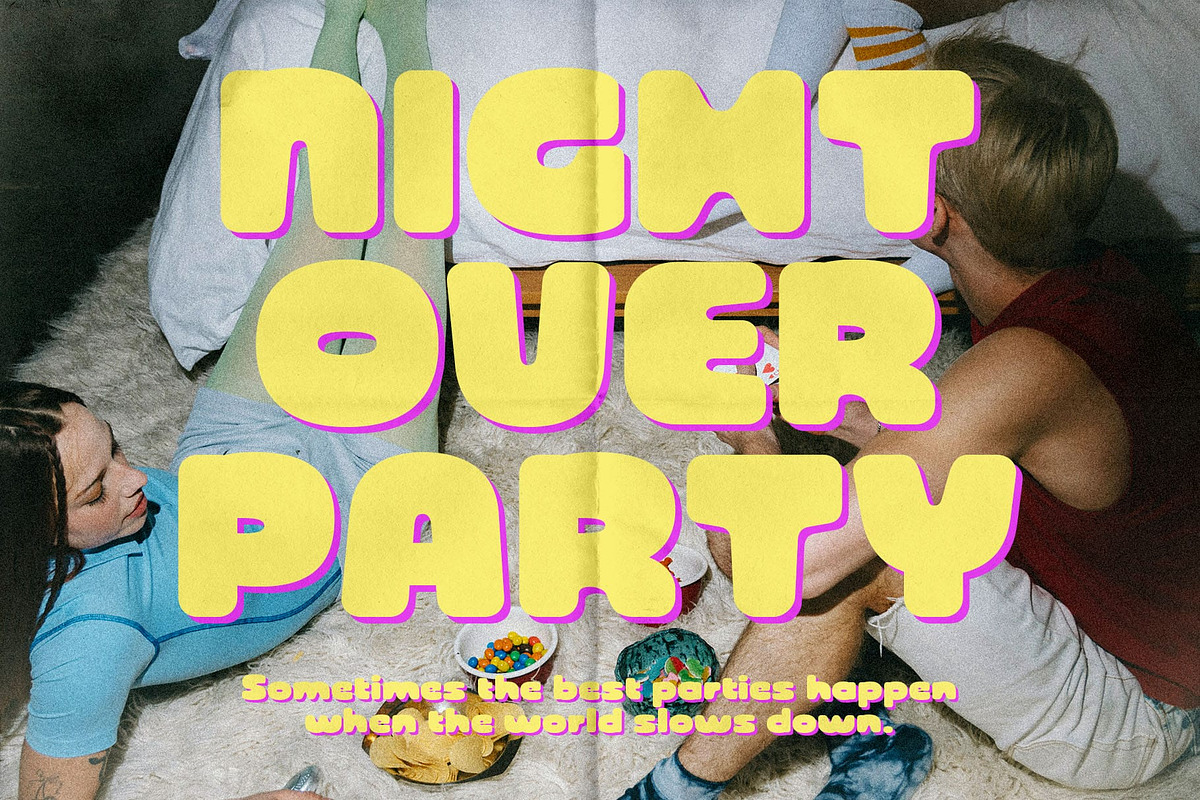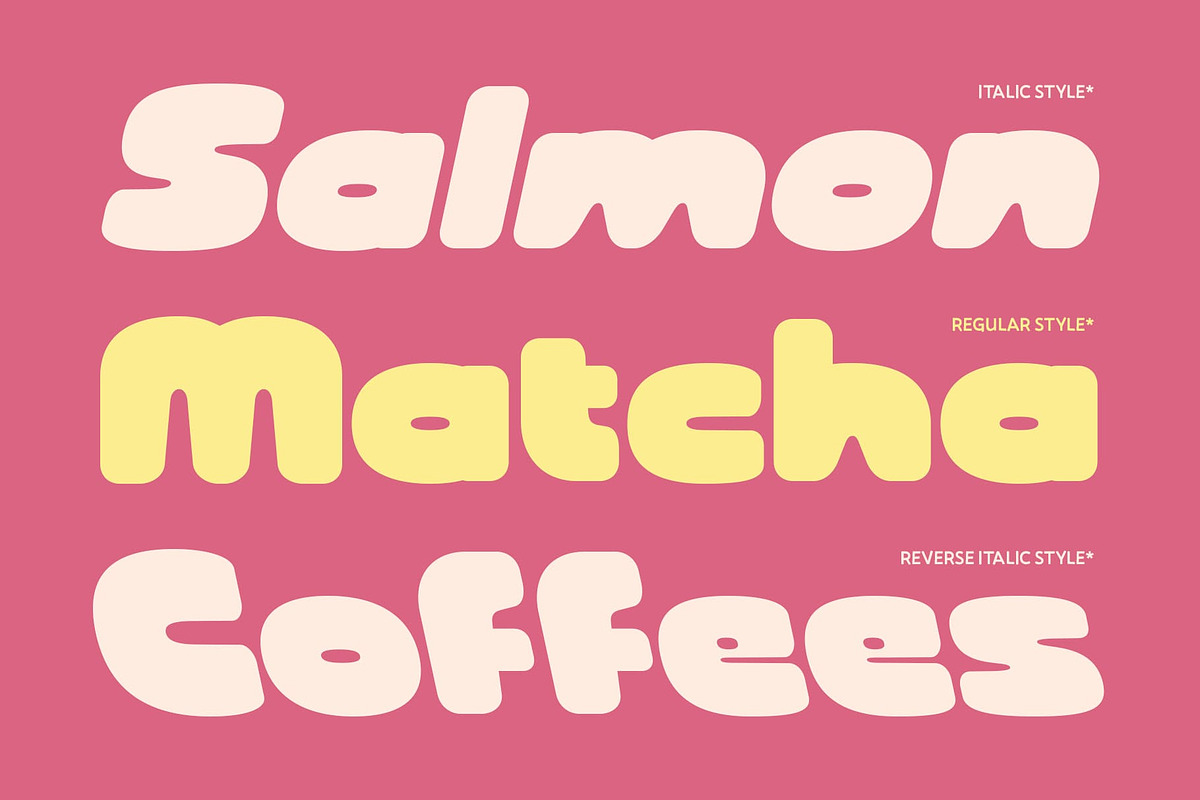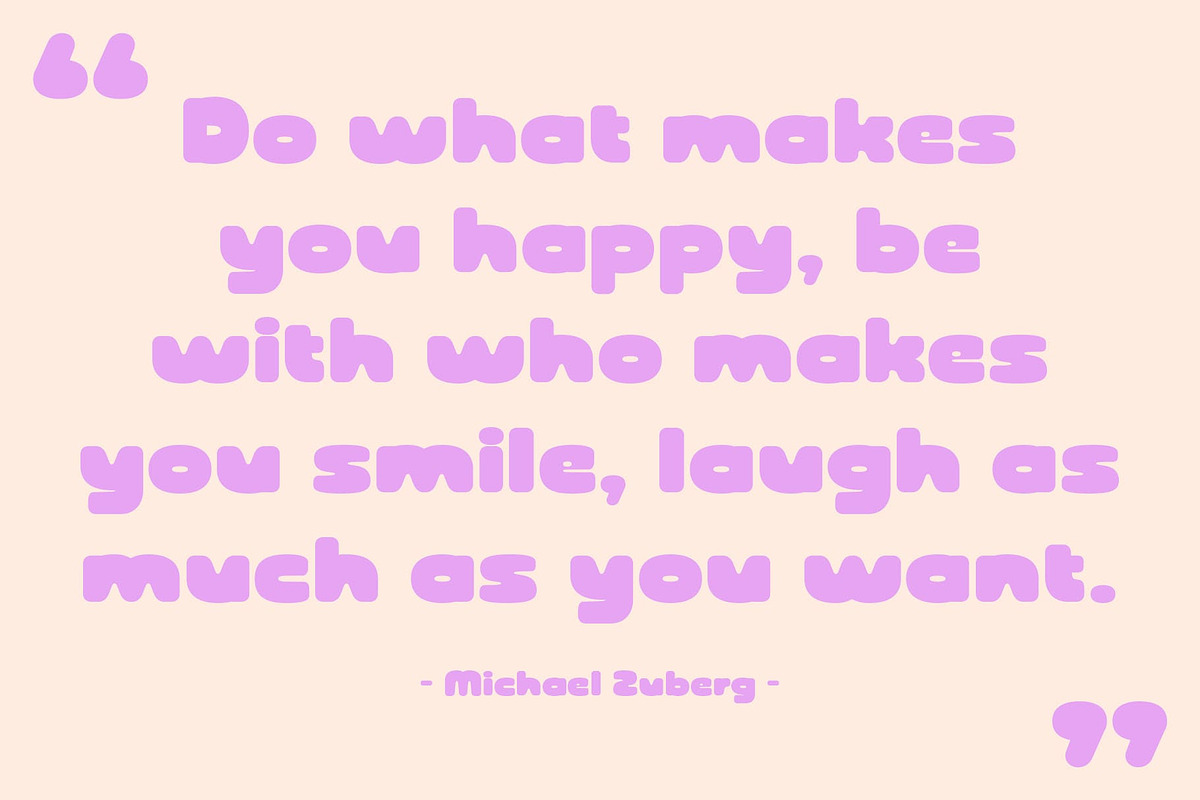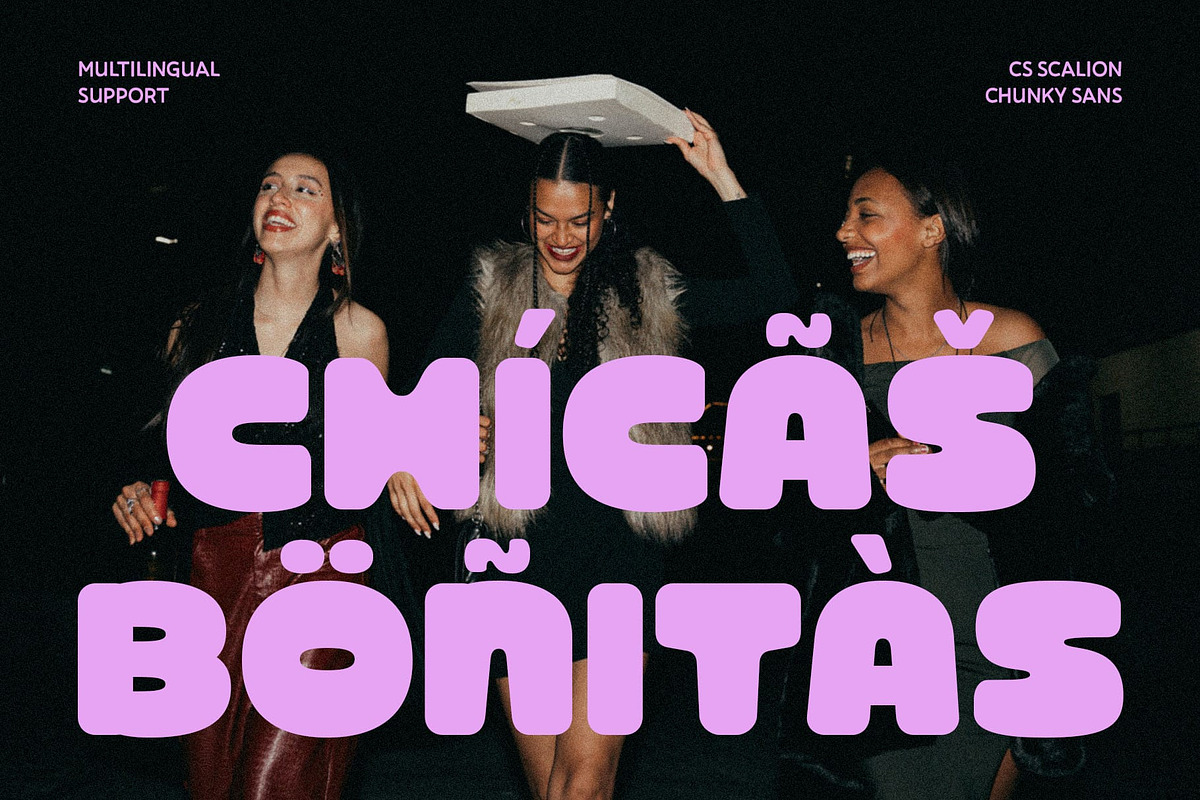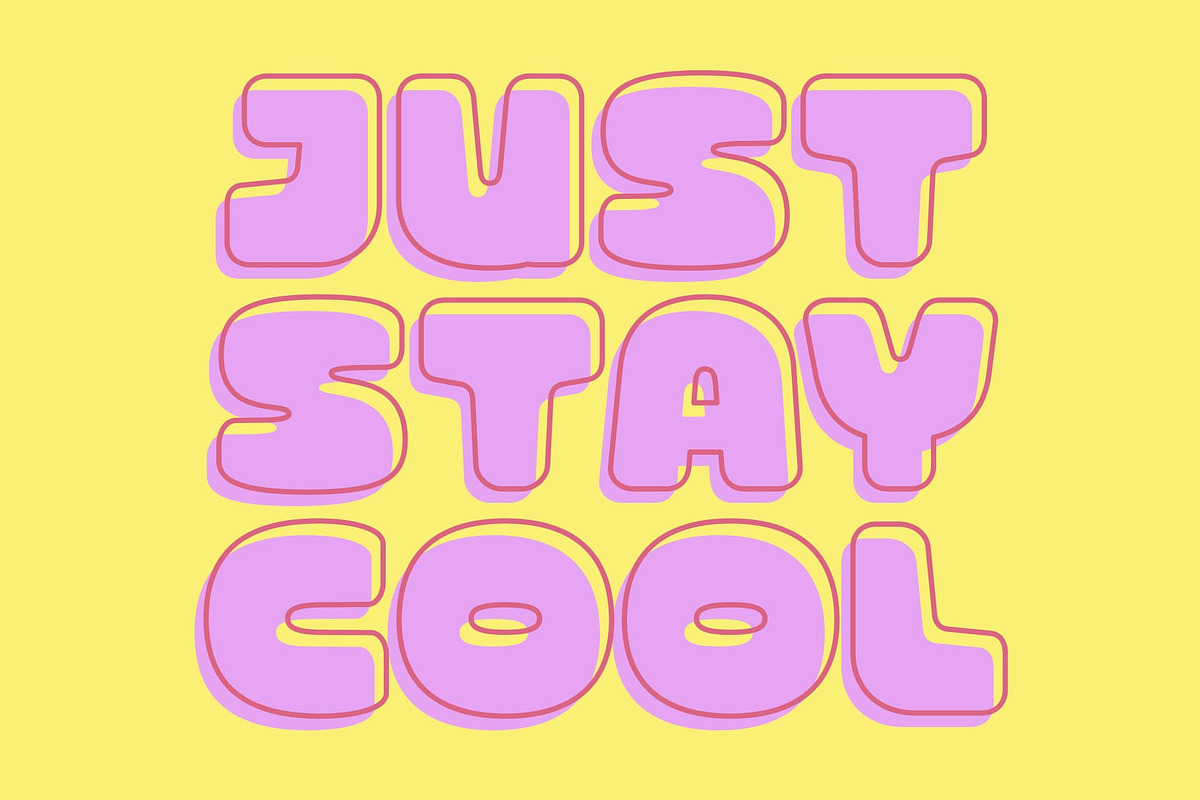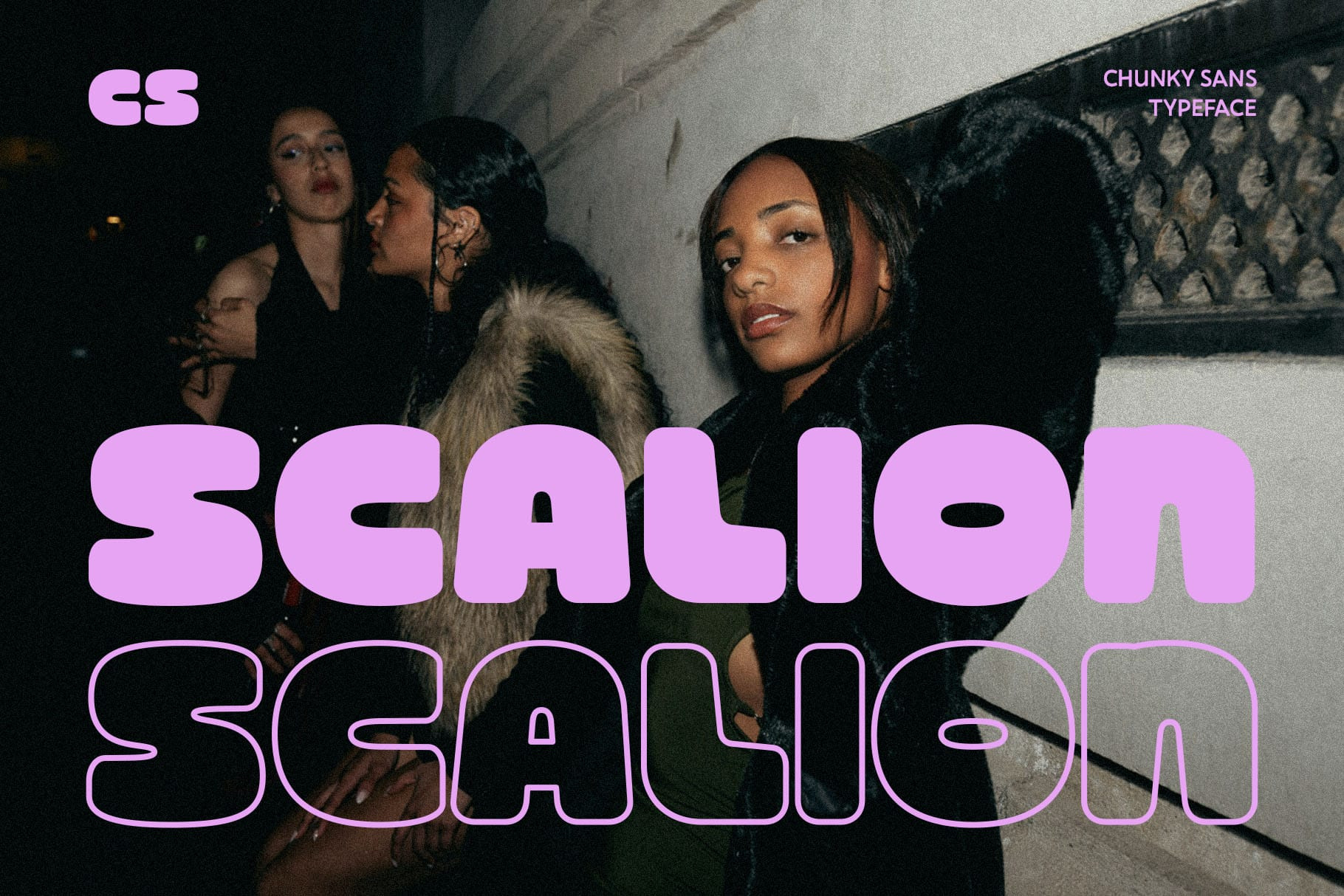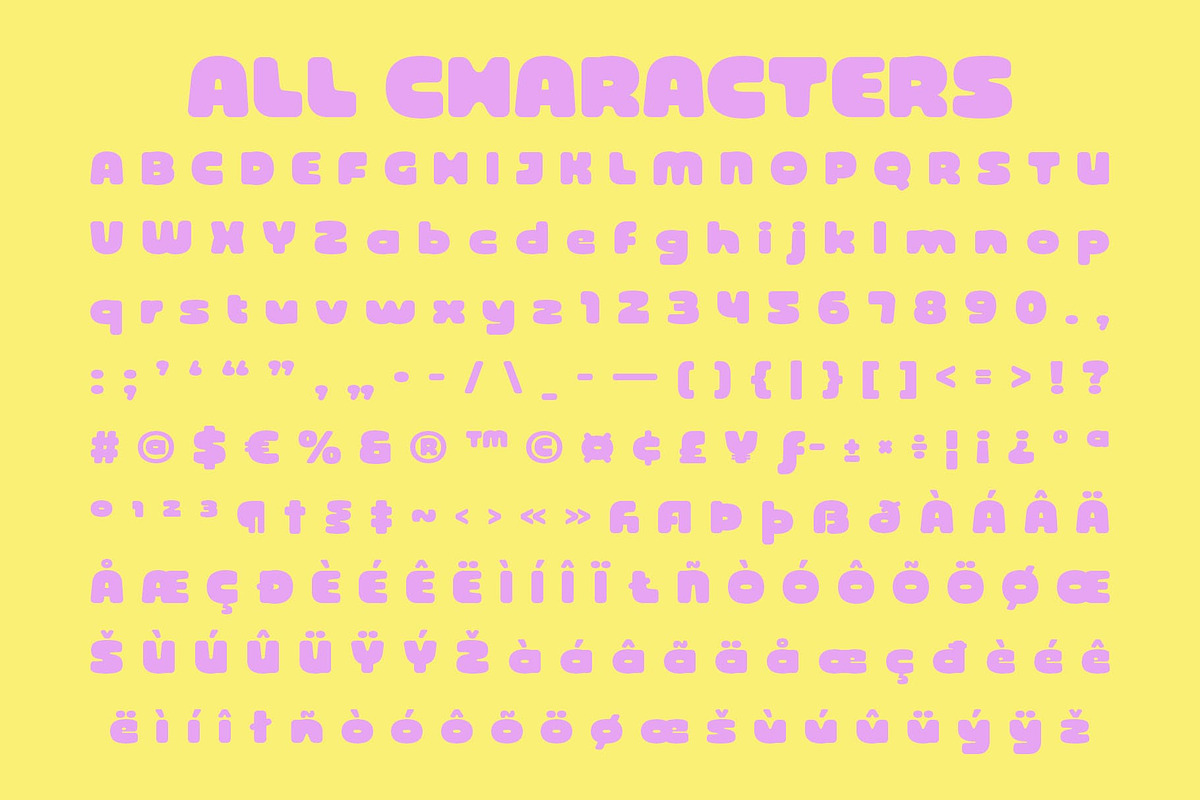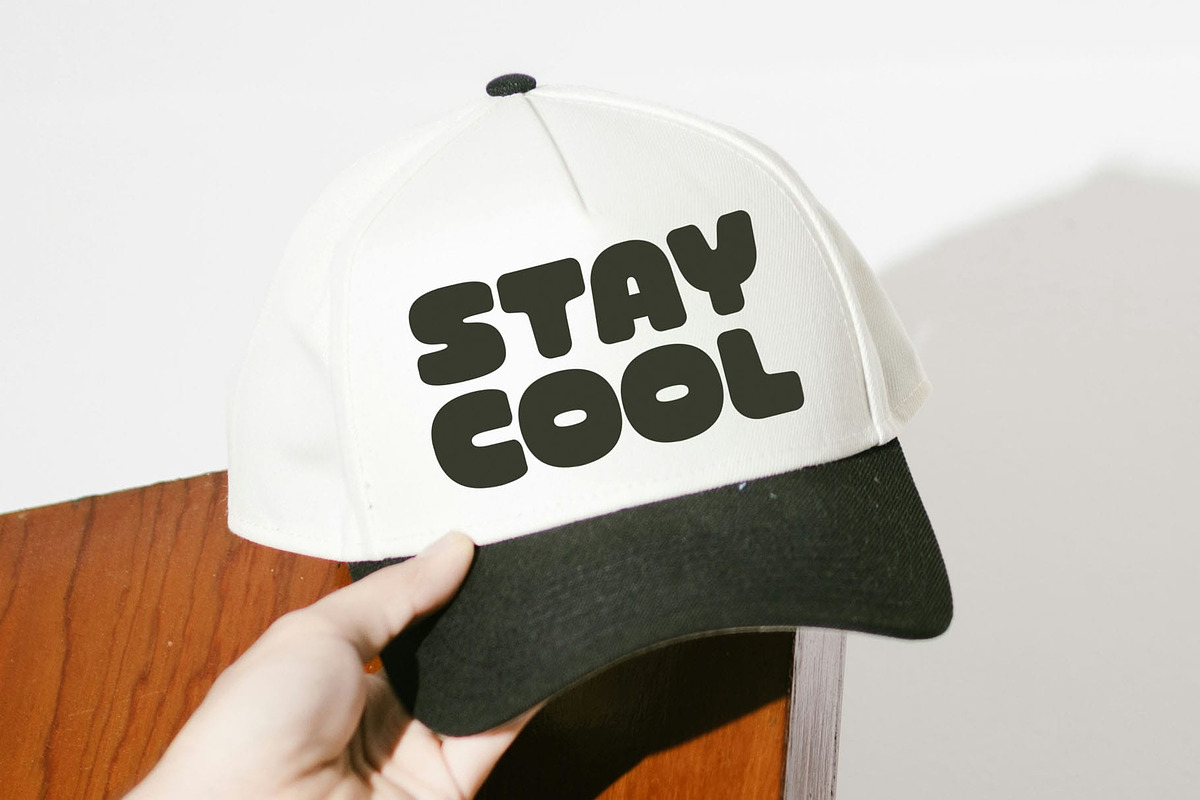
CS Scalion – Chunky Display Font
CS Scalion – Chunky Display Font: Rounded Bubble Font with Playful Strength
Bold and Sturdy Character CS Scalion features a bold, chunky design that conveys a sense of strength and solidity. Its slightly rounded forms soften the weight of the letters, creating a balance between sturdiness and approachability. This makes it a display font that stands out with confidence while remaining friendly.
Playful Yet Attention-Grabbing With bubble-like curves and a relaxed personality, CS Scalion brings a playful touch to design projects. Its fun and casual look makes it ideal for designs that aim to engage audiences with a friendly and approachable vibe while still demanding attention.
Perfect for Titles and Logos As a display font, CS Scalion excels in large applications such as titles, banners, posters, and logos. Its chunky forms ensure maximum visibility and impact, helping your message remain bold and memorable across different media.
Vibrant with Colorful Designs CS Scalion pairs beautifully with bright and colorful palettes, enhancing its playful character. When combined with vibrant tones, the font truly shines, making it a standout choice for modern branding, creative campaigns, and youthful visual identities.
- CS Scalion Regular
- CS Scalion Italic
- CS Scalion Reverse Italic